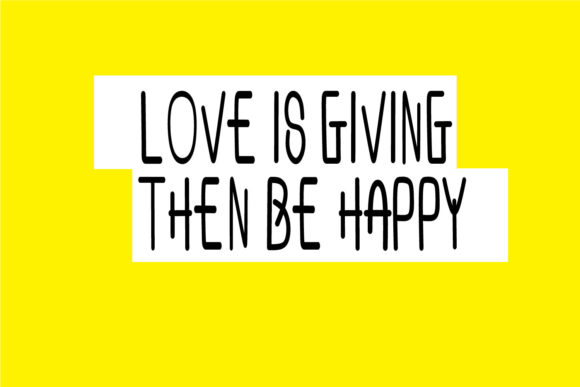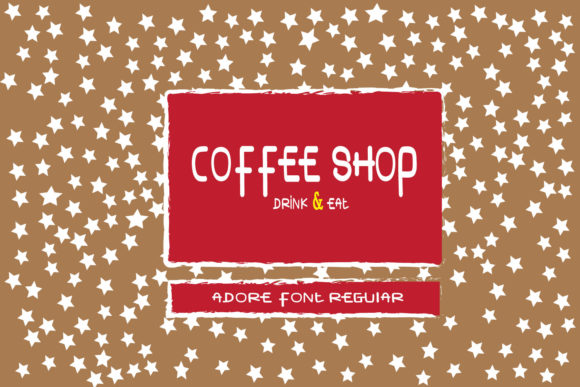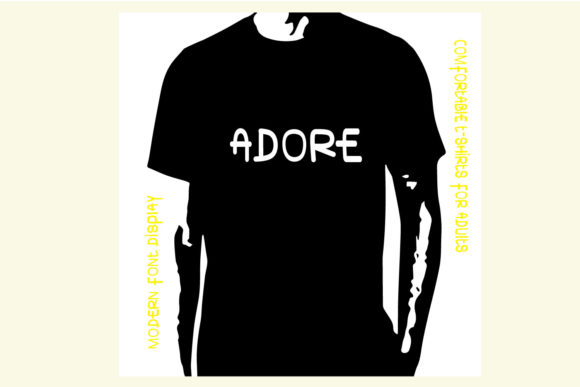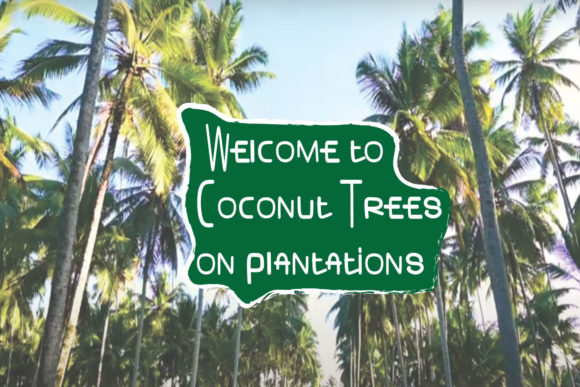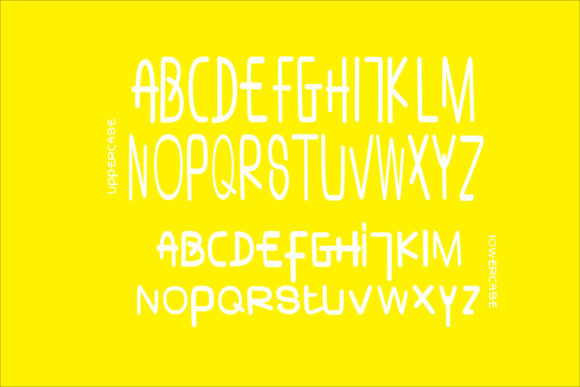
Introducing Adore Font: The Friendly and Quirky Display Font You Need
Are you tired of using the same old fonts in your designs? Look no further than Adore Font, a friendly and quirky display font that’s sure to elevate your creations. Whether you’re a designer, crafter, or simply someone who loves to dabble in typography, Adore Font is an incredibly valuable asset to have in your font library.
The Versatility of Adore Font
One of the best things about Adore Font is its versatility. No matter the topic or theme of your project, this font is sure to fit right in. Whether you’re designing a logo, creating a social media graphic, or crafting a handmade card, Adore Font is the perfect choice. Its friendly and approachable vibe makes it suitable for a wide range of applications, from playful and whimsical to elegant and sophisticated.
What Makes Adore Font So Special?
So, what sets Adore Font apart from other display fonts on the market? For starters, its unique and quirky personality is sure to grab attention and make your designs stand out. The font’s carefully crafted letterforms are both elegant and playful, with a subtle charm that’s hard to resist. Plus, with its clean and simple lines, Adore Font is incredibly easy to read, making it perfect for use in a variety of contexts.
Key Features of Adore Font
- Unique and quirky personality: Adore Font has a one-of-a-kind charm that’s sure to make your designs stand out.
- Clean and simple lines: The font’s clean and simple design makes it easy to read and versatile for use in a variety of contexts.
- Elegant and playful letterforms: Adore Font’s carefully crafted letterforms are both elegant and playful, with a subtle charm that’s hard to resist.
- Highly legible: Despite its playful nature, Adore Font is incredibly easy to read, making it perfect for use in a wide range of applications.
How to Use Adore Font in Your Designs
Adore Font is incredibly easy to use, even if you’re new to working with fonts. Here are a few tips to get you started:
- Use it as a display font: Adore Font is perfect for use as a display font, making it ideal for headlines, titles, and other prominent text elements.
- Pair it with other fonts: Adore Font pairs well with a wide range of other fonts, making it easy to create visually interesting and dynamic designs.
- Experiment with different sizes and colors: Don’t be afraid to experiment with different sizes and colors to find the perfect look for your design.
Why Designers and Crafters Love Adore Font
Adore Font has quickly become a favorite among designers and crafters, and it’s easy to see why. Here are just a few reasons why:
- Instantly elevates designs: Adore Font has the power to instantly elevate your designs, making them look more polished and professional.
- Adds a touch of personality: Adore Font’s unique and quirky personality adds a touch of personality to any design, making it more engaging and memorable.
- Perfect for a wide range of projects: Whether you’re working on a logo, social media graphic, or handmade craft, Adore Font is the perfect choice.
| Font Name | Adore Font |
| Author | zenmalikstudio |
In conclusion, Adore Font is a friendly and quirky display font that’s sure to become a valuable asset in your font library. With its unique and quirky personality, clean and simple lines, and highly legible design, Adore Font is perfect for use in a wide range of applications. Whether you’re a designer, crafter, or simply someone who loves to dabble in typography, Adore Font is a must-have font that’s sure to elevate your creations.